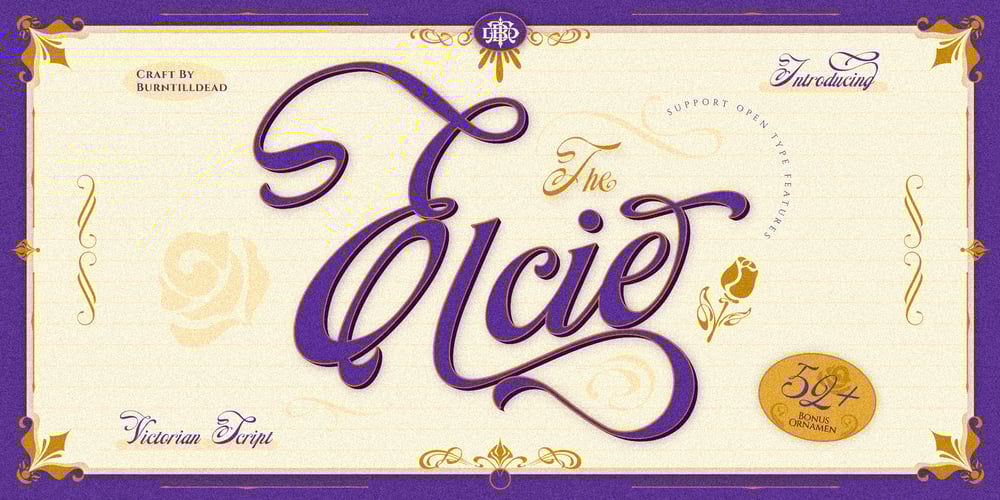
BTD Elcie Font Family was designed by Eric Kurniawan and published by Burntilldead. BTD Elcie contains 2 styles and family package options. How to create design look victorian style? Easy! The answer is Elcie. This font make your design look victorian, classical and elegant impression with additional free ornaments. Perfectly suitable for victorian theme concept design such as logotype, label design, cover book, business card, invitation card and many more.Features: A – Z set (uppercase and lowercase) Number Punctuation Multilingual Alternate Ligature